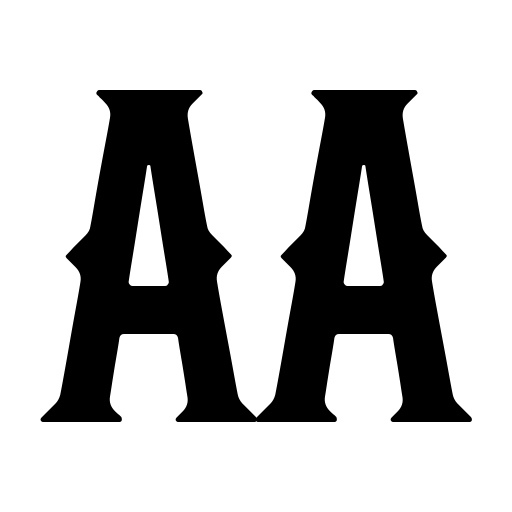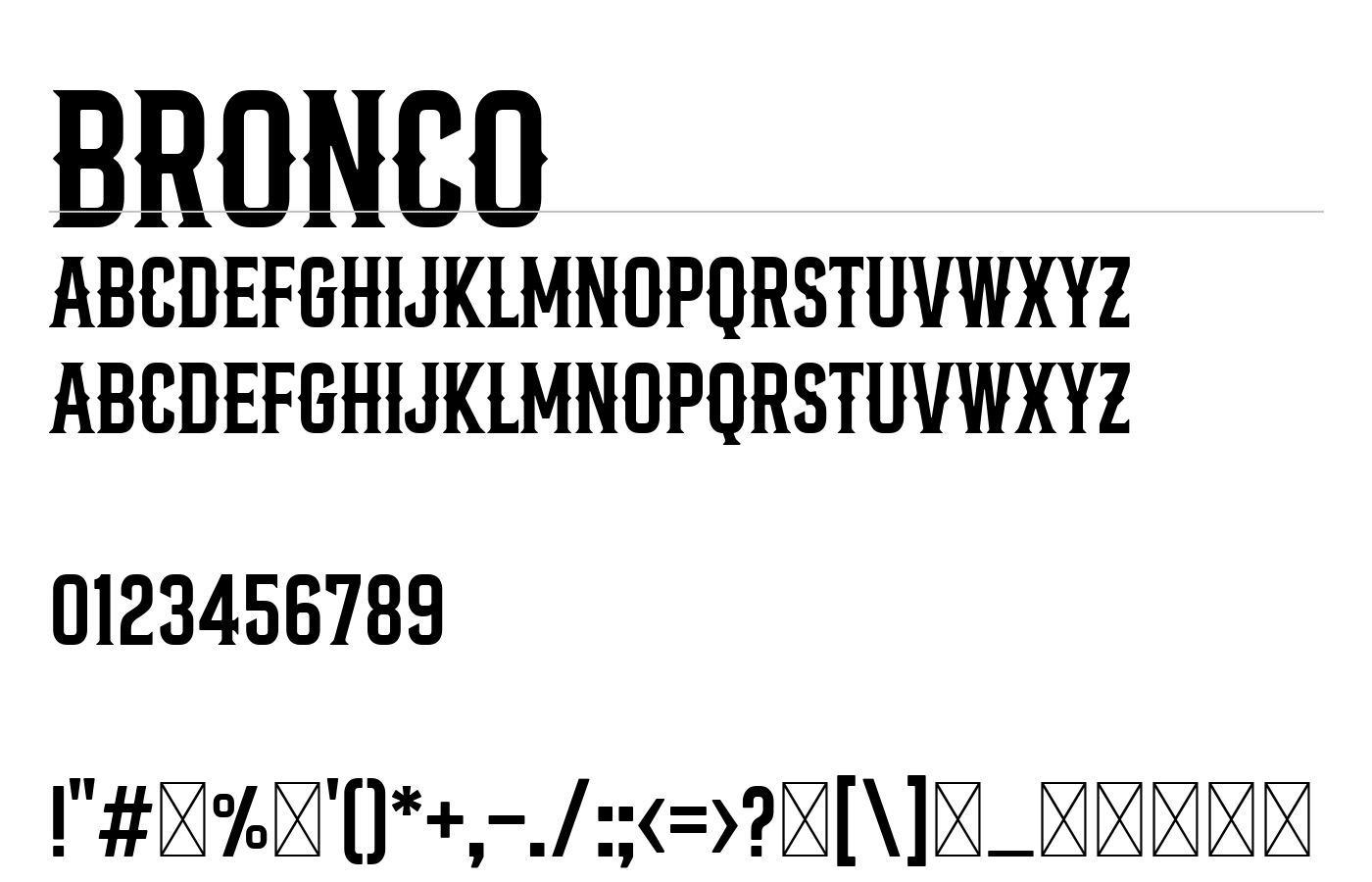
Bronco is a bold, condensed slab serif font with strong, blocky letterforms that convey a rugged, vintage western vibe. Its high contrast strokes and sharp, unbracketed serifs create a commanding presence perfect for bold headlines, logos, and branding that aim to evoke strength and tradition. This font works well in designs that need a sturdy, timeless look with a touch of rustic charm.
Bronco Font
About Bronco Font